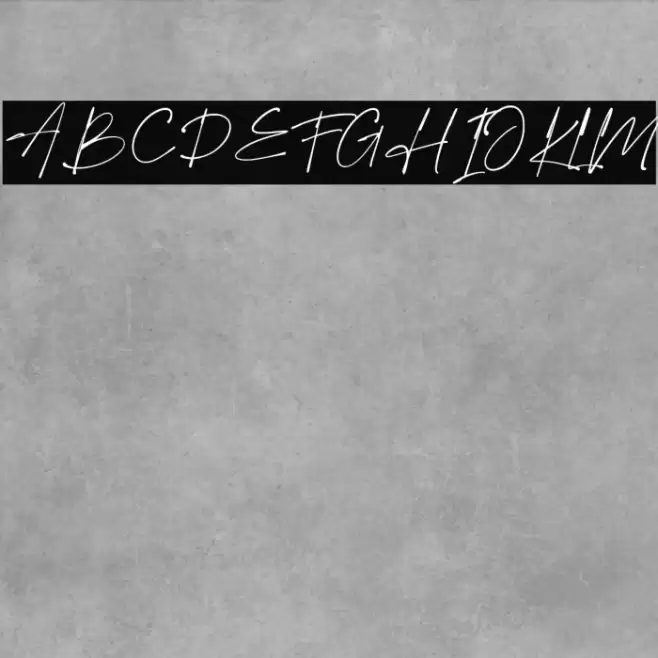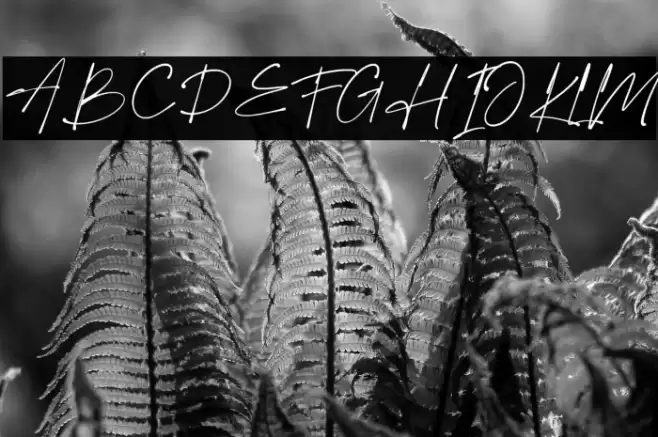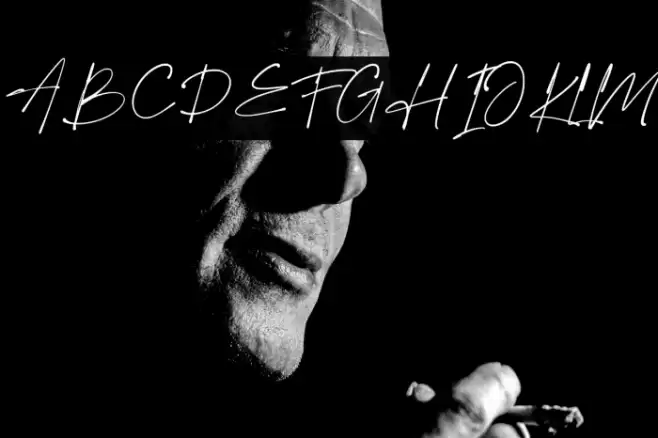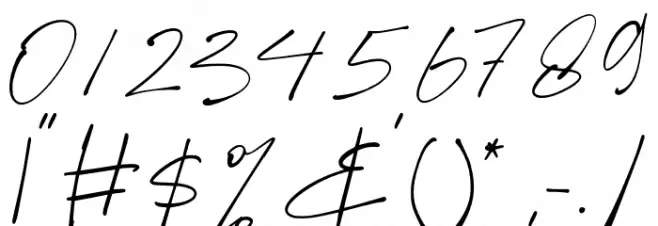
The Boston Font
The Boston Description
This font exhibits a dynamic and fluid handwritten style, characterized by its elegant and flowing script. The uppercase letters are tall and slightly slanted, giving a sense of movement and grace. Lowercase letters maintain a consistent style, with smooth curves and loops that enhance the handwritten feel. The numbers are clear and legible, maintaining the same fluidity as the letters. Special characters are creatively integrated, adding to the font's overall charm. This font is perfect for projects that require a personal touch, such as invitations, greeting cards, or branding materials.
A fluid and elegant handwritten script font with dynamic curves from Uncategorized fonts.
- Font: The Boston
- Proposed Projects: Ideal for wedding invitations, personal branding, greeting cards, and artistic projects.
- Use Case: Logos, Headlines, Artistic projects